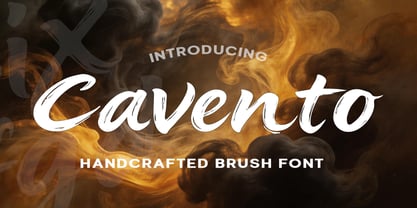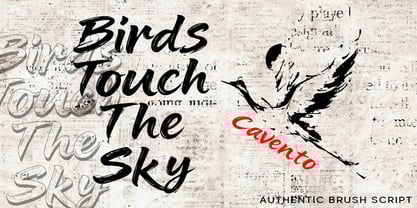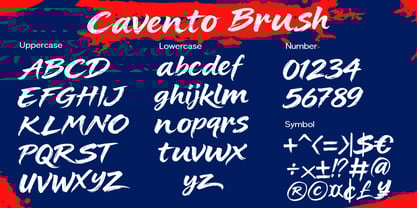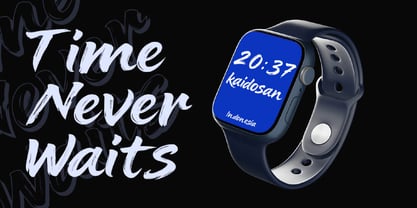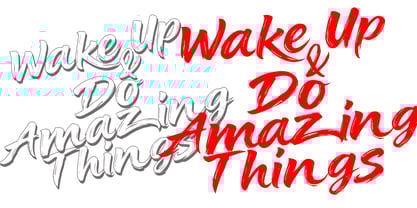
Cavento
The Cavento Font Family was designed by Muhammad Ansari and published by Kaidosan. Cavento contains 2 styles and family package options. More about this family
A Bold Handcrafted Brush Typeface Cavento is an expressive handcrafted brush typeface that captures the raw elegance and fluid motion of natural brush lettering. Built with bold strokes and dynamic curves, Cavento delivers a powerful visual rhythm that feels both energetic and refined. Carefully crafted to balance authenticity and usability, each letterform reflects the organic imperfections of real brush work while maintaining a harmonious structure for modern typography. The result is a typeface that feels spontaneous, artistic, and confidently contemporary. With its striking presence and flowing character, Cavento is designed to command attention. From bold branding and impactful headlines to stylish packaging and creative editorial layouts, this typeface transforms ordinary typography into a vibrant visual statement. Cavento blends handcrafted artistry with modern design sensibility, making it an ideal choice for designers who seek typography with personality, movement, and unmistakable character. Features • Uppercase & Lowercase Characters • Numerals & Punctuation • Multilingual Support • Smooth brush curves and natural stroke rhythm Perfect For Brand identities, logos, packaging design, posters, social media graphics, apparel design, product labels, editorial headlines, and creative visual storytelling. Cavento brings the expressive spirit of brush lettering into contemporary design — bold, confident, and unmistakably artistic.